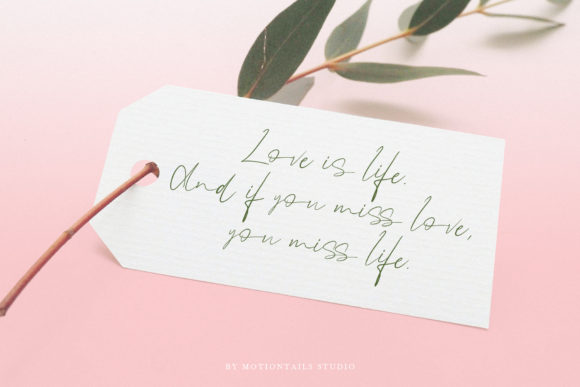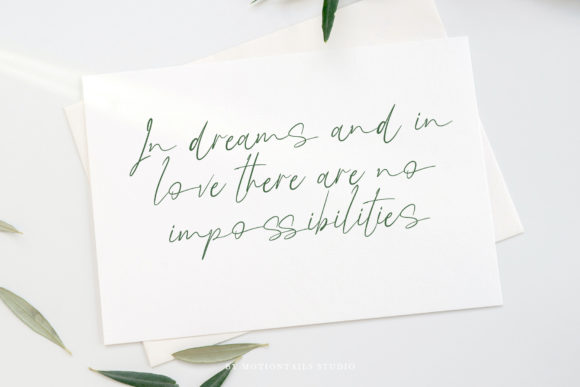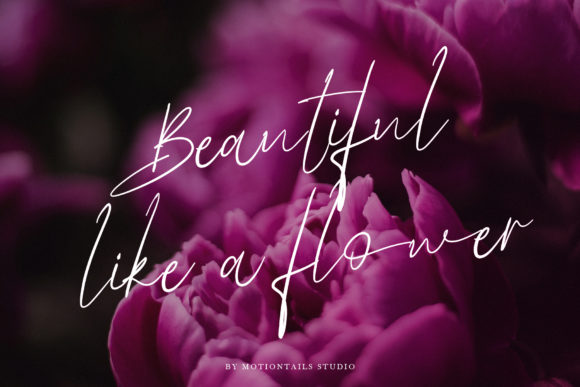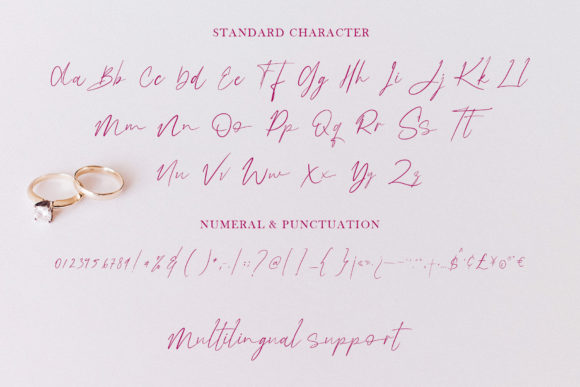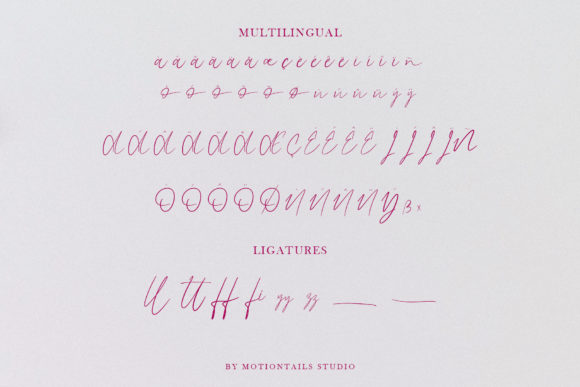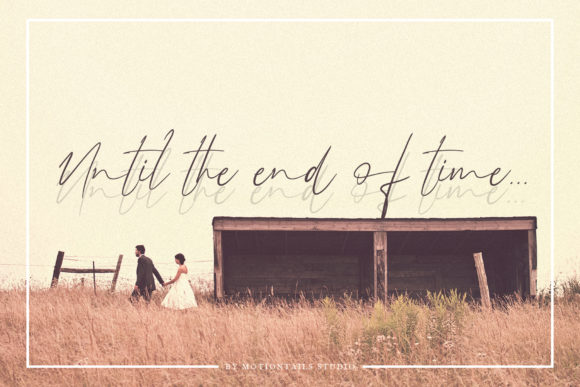
Bellanesia Font: Elevate Your Designs with Elegance and Flair
Are you a designer or crafter looking for a font that exudes elegance and sophistication? Look no further than Bellanesia Font. This delicate, elegant, and flowing handwritten font is sure to take your creative projects to the next level. With its beautiful and well-balanced characters, Bellanesia Font matches a wide pool of designs, making it the perfect addition to your font collection.
The Beauty of Bellanesia Font
Bellanesia Font is a masterclass in typography. Its delicate lines and curves create a sense of movement and fluidity, giving your designs a dynamic and eye-catching feel. The font’s elegant and flowing script is perfect for adding a touch of sophistication to any project, from wedding invitations and branding materials to packaging and digital media.
Key Features of Bellanesia Font
• Delicate and elegant design: Bellanesia Font features a beautiful, handwritten script that is both refined and sophisticated.
• Well-balanced characters: Each character is carefully crafted to ensure perfect balance and harmony, making it easy to read and visually appealing.
• Versatile: Bellanesia Font matches a wide range of designs, from modern and minimalist to vintage and ornate.
Why Designers and Crafters Love Bellanesia Font
Designers and crafters love Bellanesia Font for its versatility and elegance. Whether you’re creating a logo, branding materials, or social media graphics, Bellanesia Font adds a touch of sophistication and refinement. Its flowing script and delicate lines make it perfect for:
• Wedding and event planning: Create beautiful wedding invitations, save-the-dates, and event branding with Bellanesia Font.
• Branding and packaging: Elevate your brand with elegant and sophisticated packaging and branding materials.
• Digital media: Use Bellanesia Font to create stunning social media graphics, blog headers, and email newsletters.
• Crafting and DIY projects: Add a personal touch to your crafting and DIY projects, such as handmade cards, gift tags, and scrapbooking.
How to Use Bellanesia Font in Your Designs
• Pair with bold fonts: Pair Bellanesia Font with bold, modern fonts for a striking contrast.
• Use in headlines and titles: Use Bellanesia Font to create eye-catching headlines and titles that grab attention.
• Add a personal touch: Use Bellanesia Font to add a personal touch to your designs, such as in quotes, testimonials, or captions.
In conclusion, Bellanesia Font is a beautiful, elegant, and versatile font that is perfect for designers and crafters looking to elevate their creative projects. With its delicate lines, well-balanced characters, and flowing script, Bellanesia Font adds a touch of sophistication and refinement to any design. Whether you’re creating wedding invitations, branding materials, or digital media, Bellanesia Font is sure to make your designs come alive.